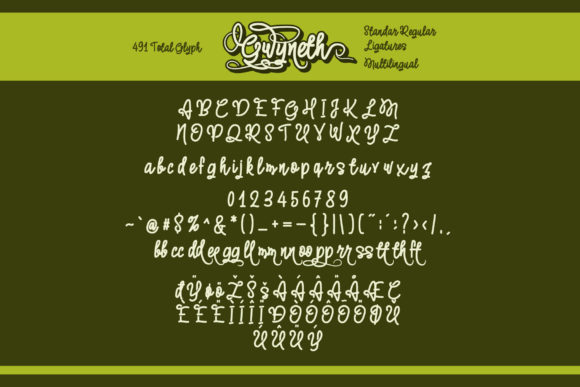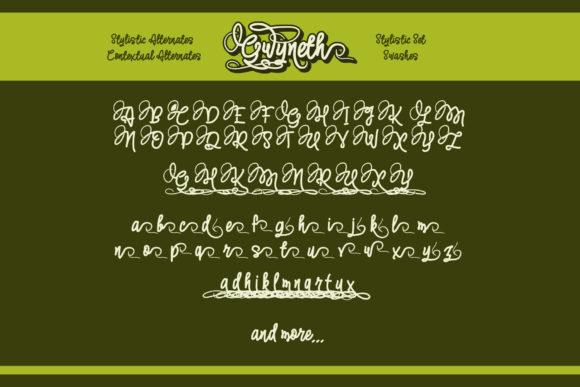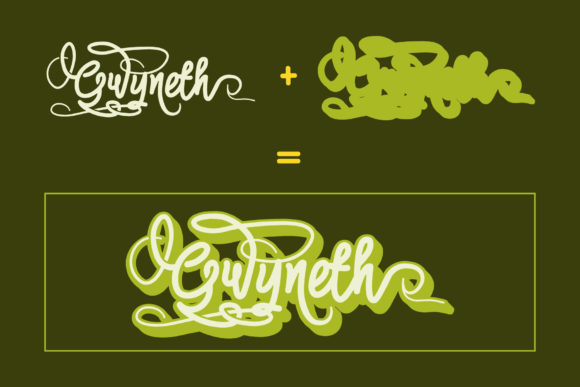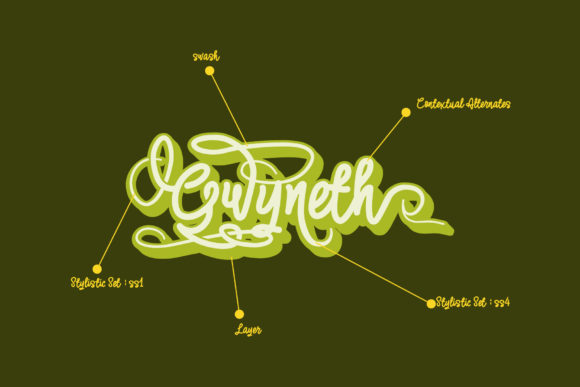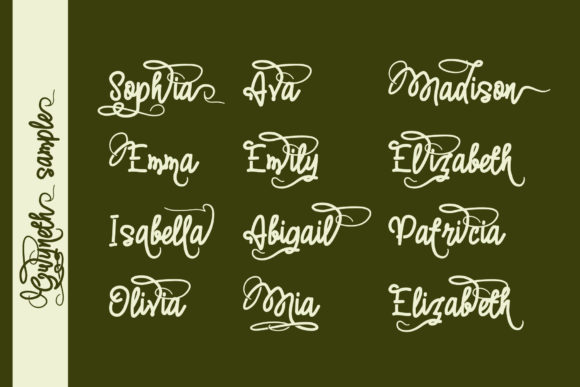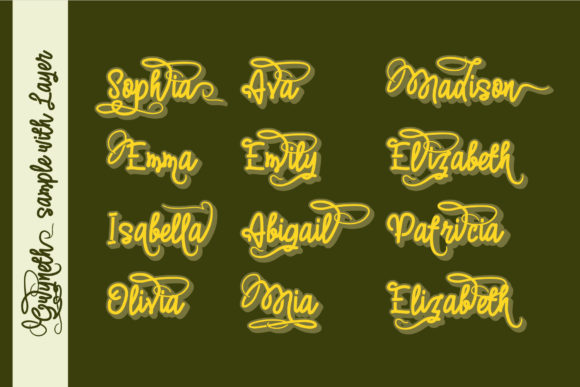
Gwyneth Font: A Stunning Handwritten Typeface with Endless Possibilities
Are you tired of using the same old fonts in your designs? Look no further than the Gwyneth font, a beautiful handwritten typeface that is sure to take your creative projects to the next level. With its unique and elegant style, Gwyneth is perfect for designers, crafters, and anyone looking to add a touch of sophistication to their work.
The Features of Gwyneth Font
So, what makes Gwyneth font so special? For starters, it’s a handwritten font, which means it has a personal and organic feel that’s hard to replicate with traditional fonts. But what really sets Gwyneth apart is its incredible range of alternates. With tons of amazing alternates to choose from, you can customize your text to fit your style and creative vision.
Whether you’re designing a logo, creating a social media graphic, or crafting a handmade card, Gwyneth font provides endless possibilities for creative expression. And with its clean and elegant lines, it’s versatile enough to be used in a wide range of projects, from formal invitations to playful DIY crafts.
Inspiration from Gwyneth Font
One of the best things about Gwyneth font is the way it can inspire your creativity. With its unique and eye-catching style, it’s the perfect starting point for a wide range of design projects. Imagine using Gwyneth to create:
- A beautiful wedding invitation, complete with elegant flourishes and personalized details
- A set of handmade cards, each one featuring a different alternate of the Gwyneth font
- A stylish logo for your business or brand, with Gwyneth’s sophisticated lines and curves
- A stunning DIY craft project, such as a customized journal or scrapbook
Why Designers and Crafters Love Gwyneth Font
So, why do designers and crafters love Gwyneth font so much? Here are just a few reasons:
- Uniqueness: Gwyneth font is truly one-of-a-kind, with a style that’s both elegant and playful
- Versatility: With its clean lines and endless alternates, Gwyneth can be used in a wide range of projects and applications
- Customization: With so many alternates to choose from, you can customize your text to fit your style and creative vision
- Ease of use: Despite its complex and elegant style, Gwyneth font is surprisingly easy to use, even for beginners
Tips for Using Gwyneth Font
Ready to get started with Gwyneth font? Here are a few tips to keep in mind:
- Experiment with alternates: Don’t be afraid to try out different alternates and see what works best for your project
- Mix and match: Combine Gwyneth font with other fonts and styles to create a truly unique look
- Pay attention to spacing: Make sure to adjust the spacing between letters and words to get the best possible results
- Have fun: Most importantly, don’t be afraid to get creative and have fun with Gwyneth font!
In conclusion, Gwyneth font is a stunning handwritten typeface that is sure to inspire your creativity and take your design projects to the next level. With its unique style, endless alternates, and ease of use, Gwyneth is the perfect choice for designers, crafters, and anyone looking to add a touch of sophistication to their work. So why wait? Get inspired by Gwyneth font today and see what amazing creations you can come up with!